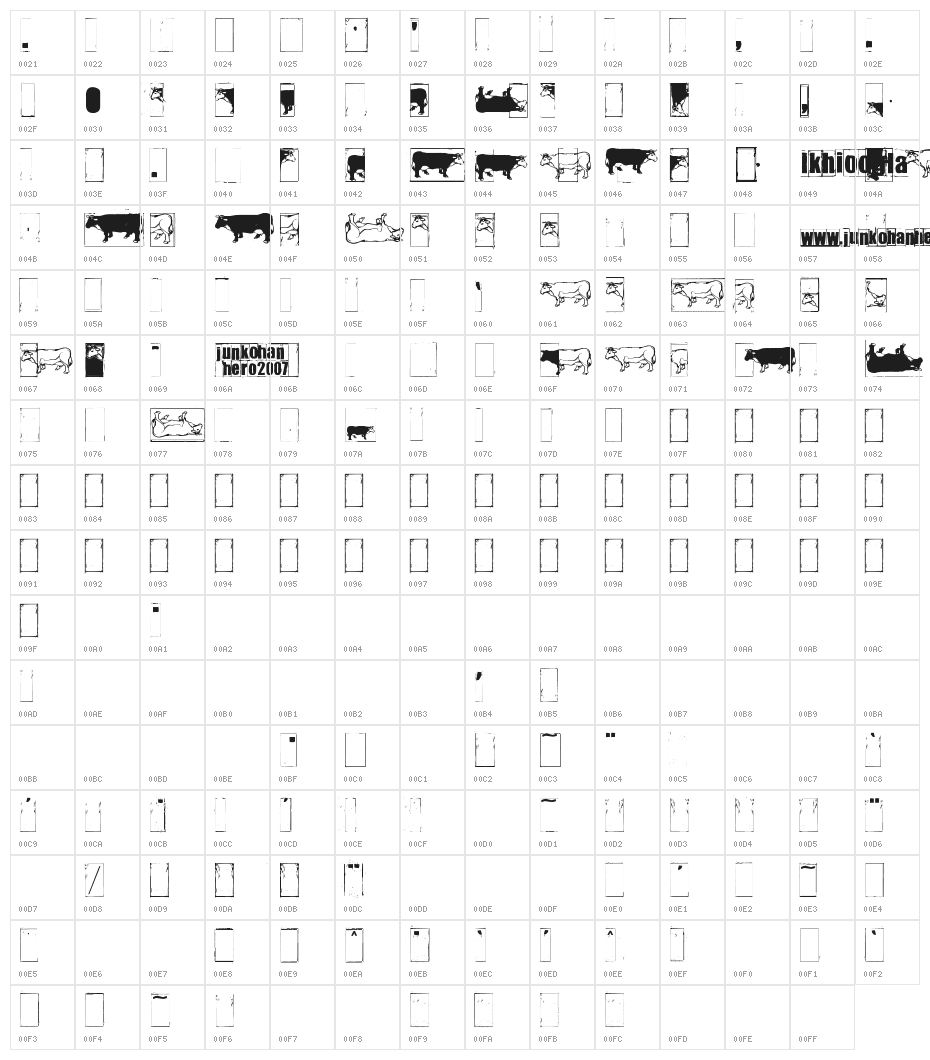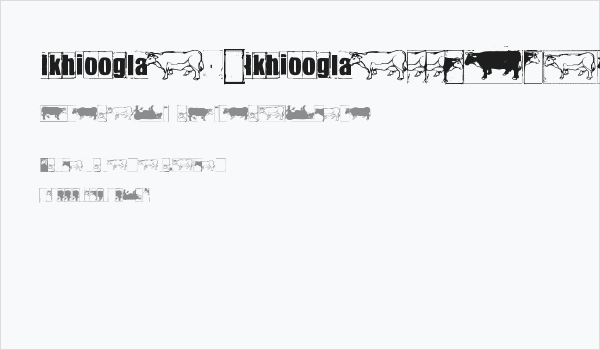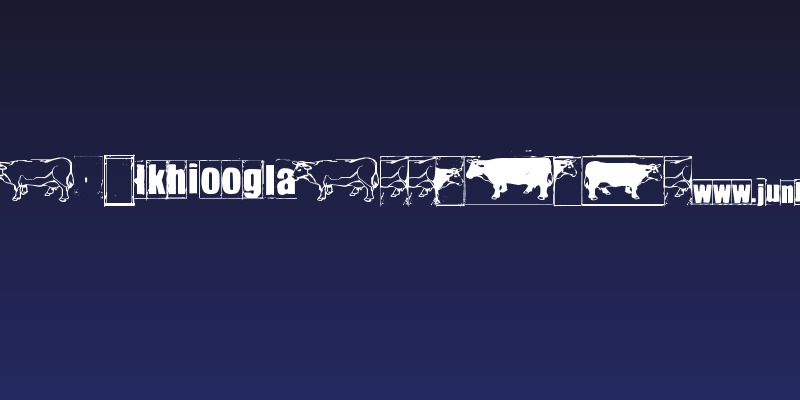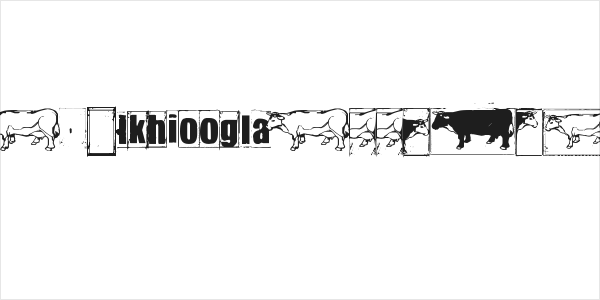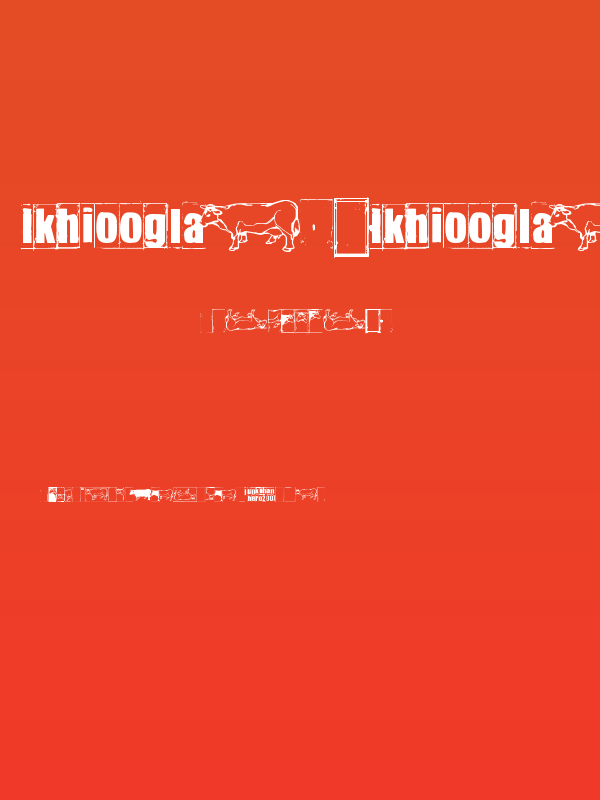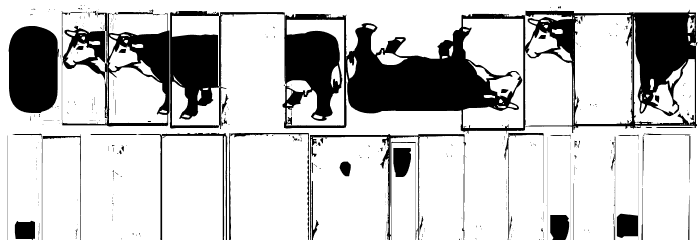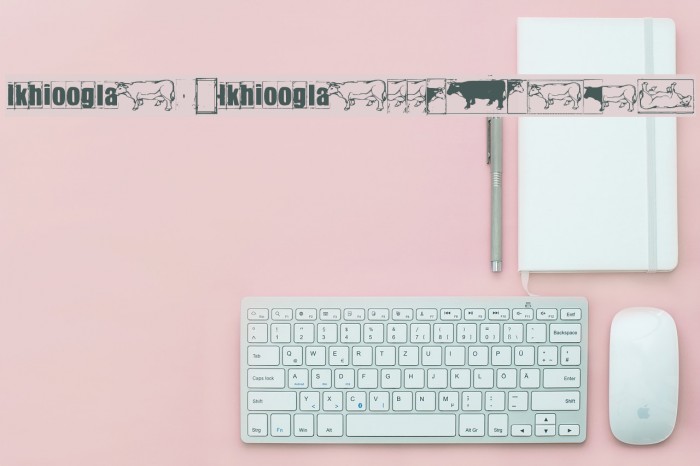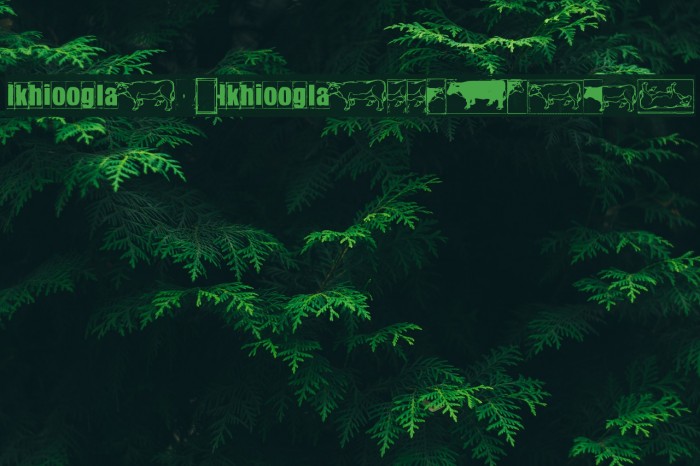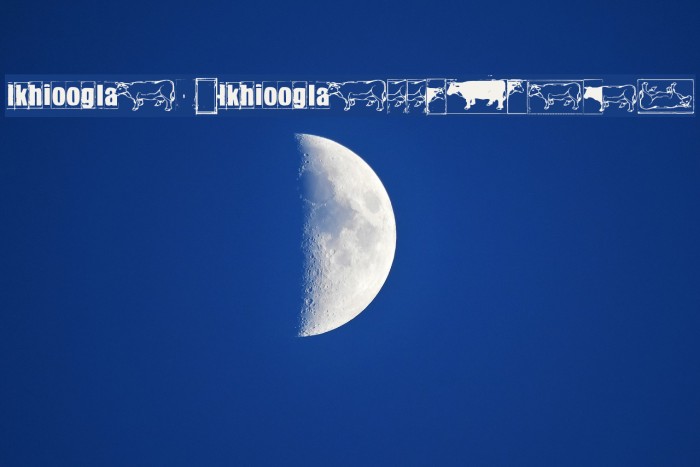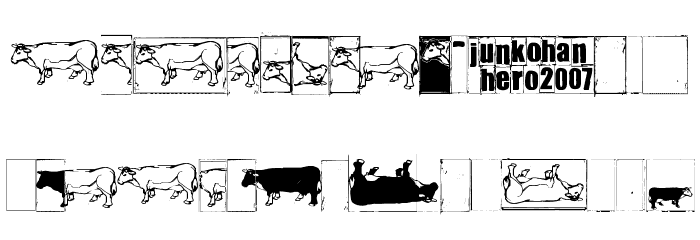
IKHIOOGLAcow Font
The image contains a decorative font with cow illustrations integrated into the characters, creating a playful and unique design.
| Overall Style | Playful, Novelty |
| Use Case | Logos, Headlines |
| Proposed Projects | Novelty items, children's books, playful branding. |